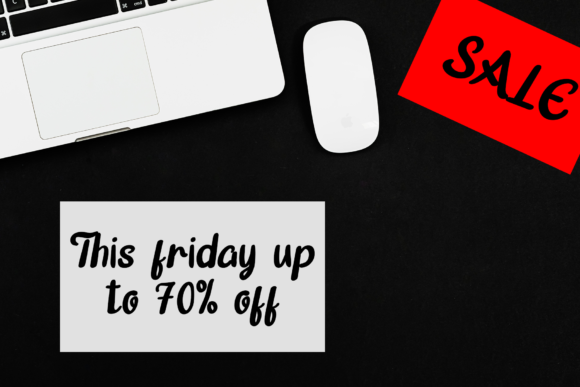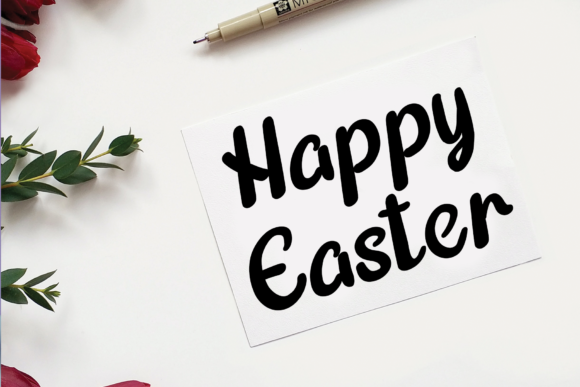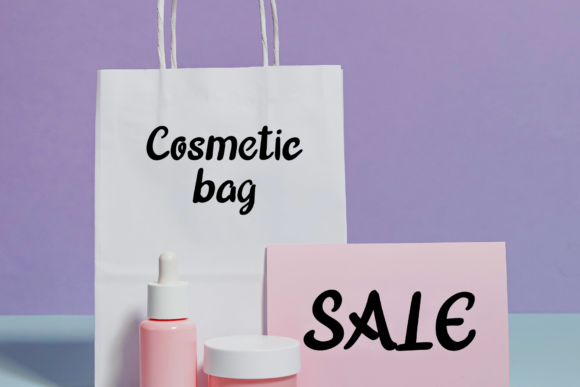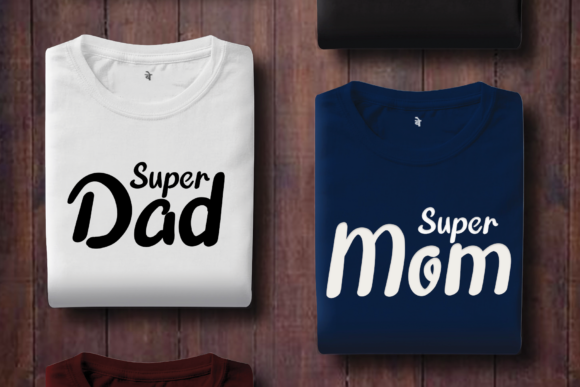
Snowman Font
About Snowman Font
Snowman is a unique handwritten font. A little bit quirky, this font looks incredibly adept on a wide variety of contexts!